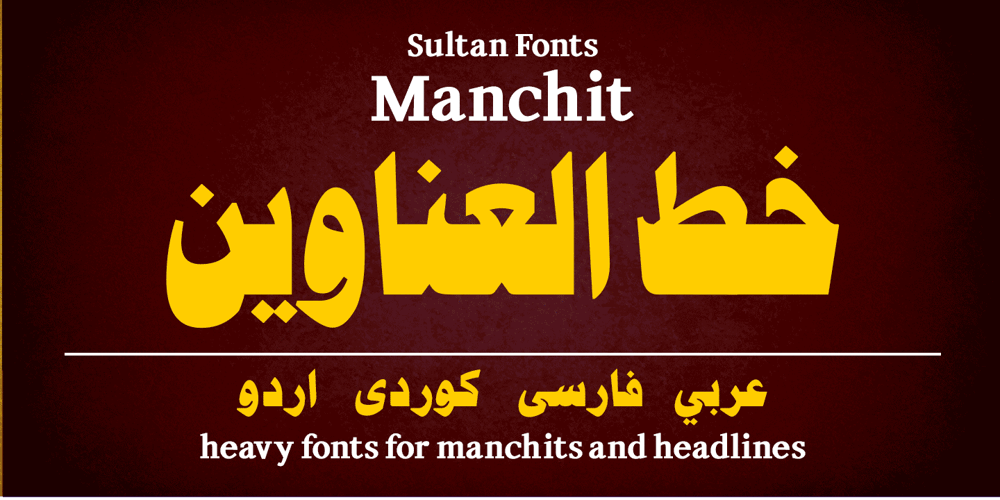
SF Manchit
SF Manchit font
SF Manchit Font Family was designed by Sultan Maqtari and published by Sultan Fonts. SF Manchit contains 2 styles and family package options. Manchit is a typeface dedicated to headlines in newspapers, magazines, advertisement banners, book covers and other printing products, and fits headlines on web pages.The Manchit font contains two styles (regular and bold) suitable for large display sizes, especially in the area of advertising, while still functioning well as a text face. The font includes a matching Latin design and support for Arabic, Persian, Kurdish, and Urdu. Designer: Sultan MaqtariDesign date: 2020Publisher: Sultan Fonts